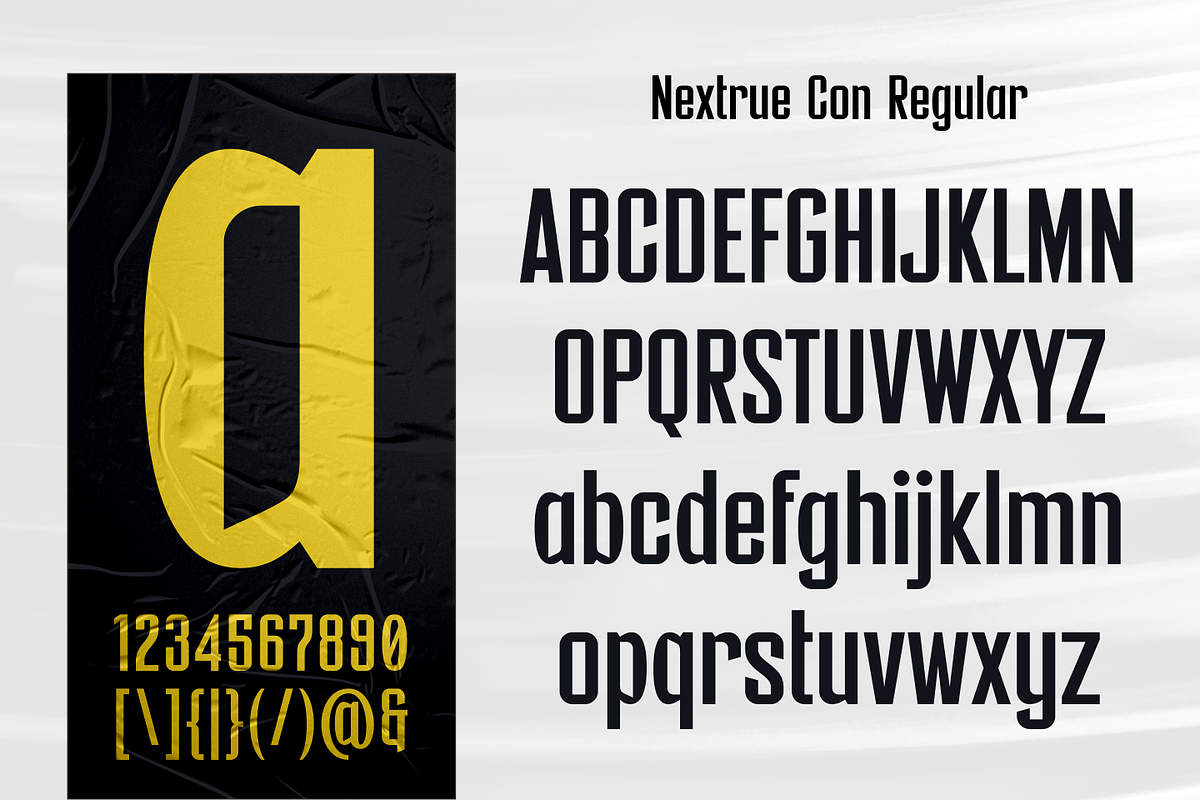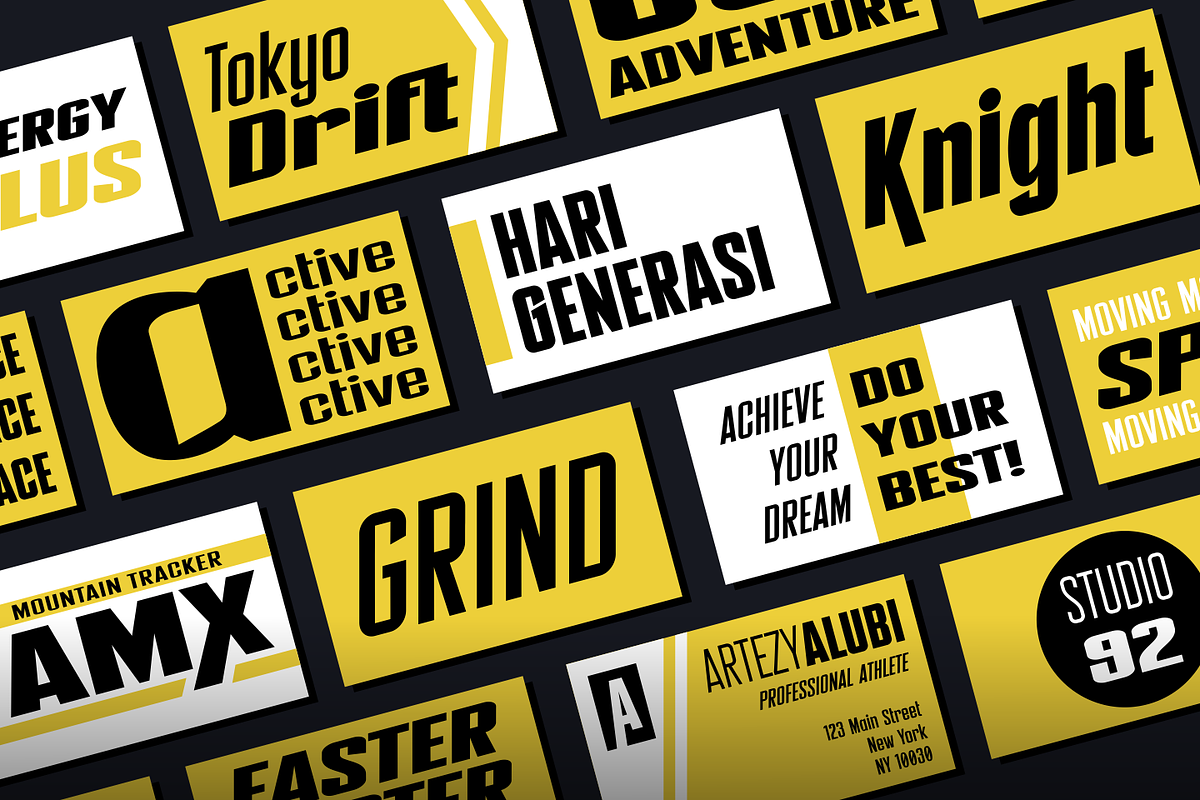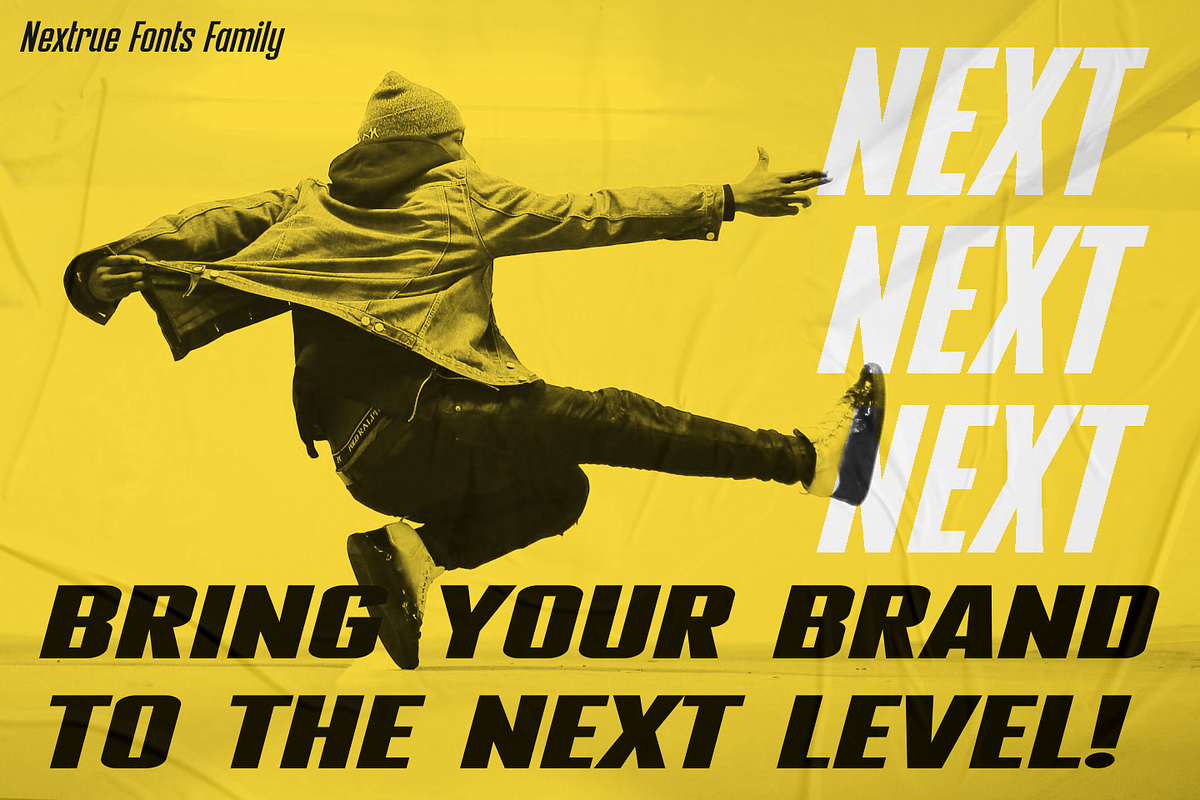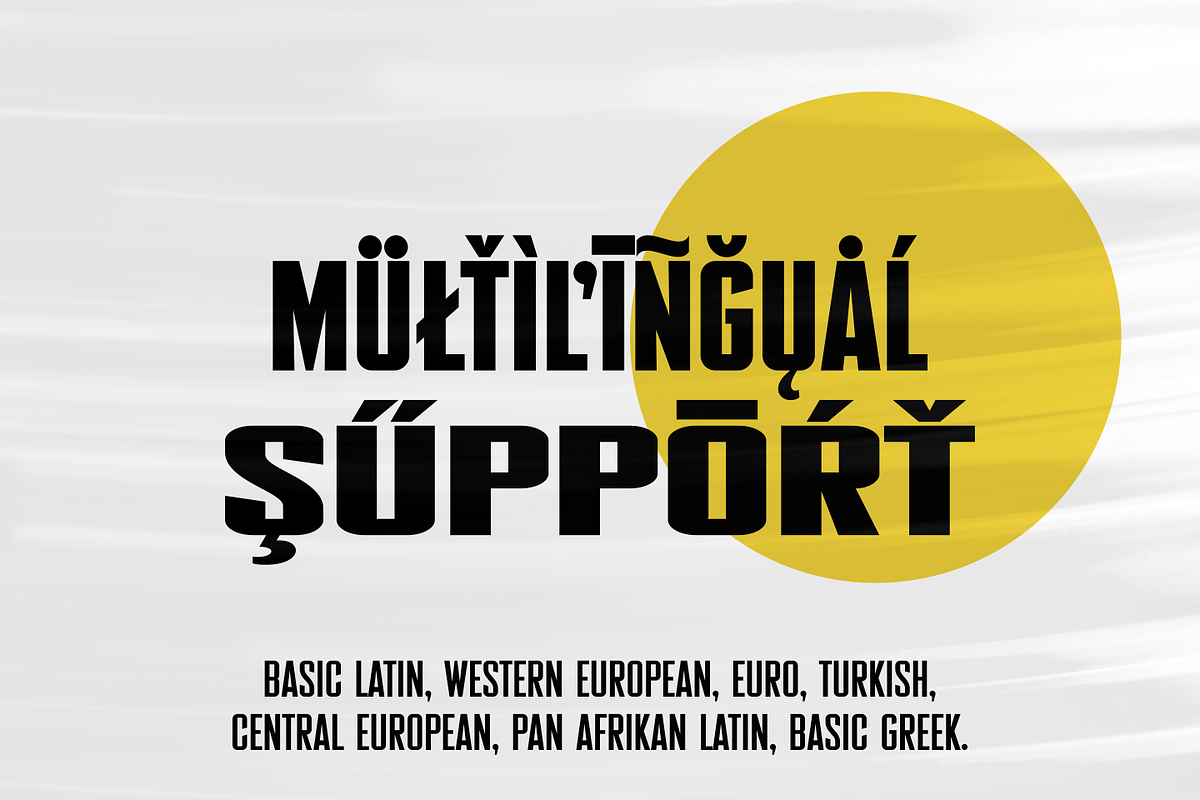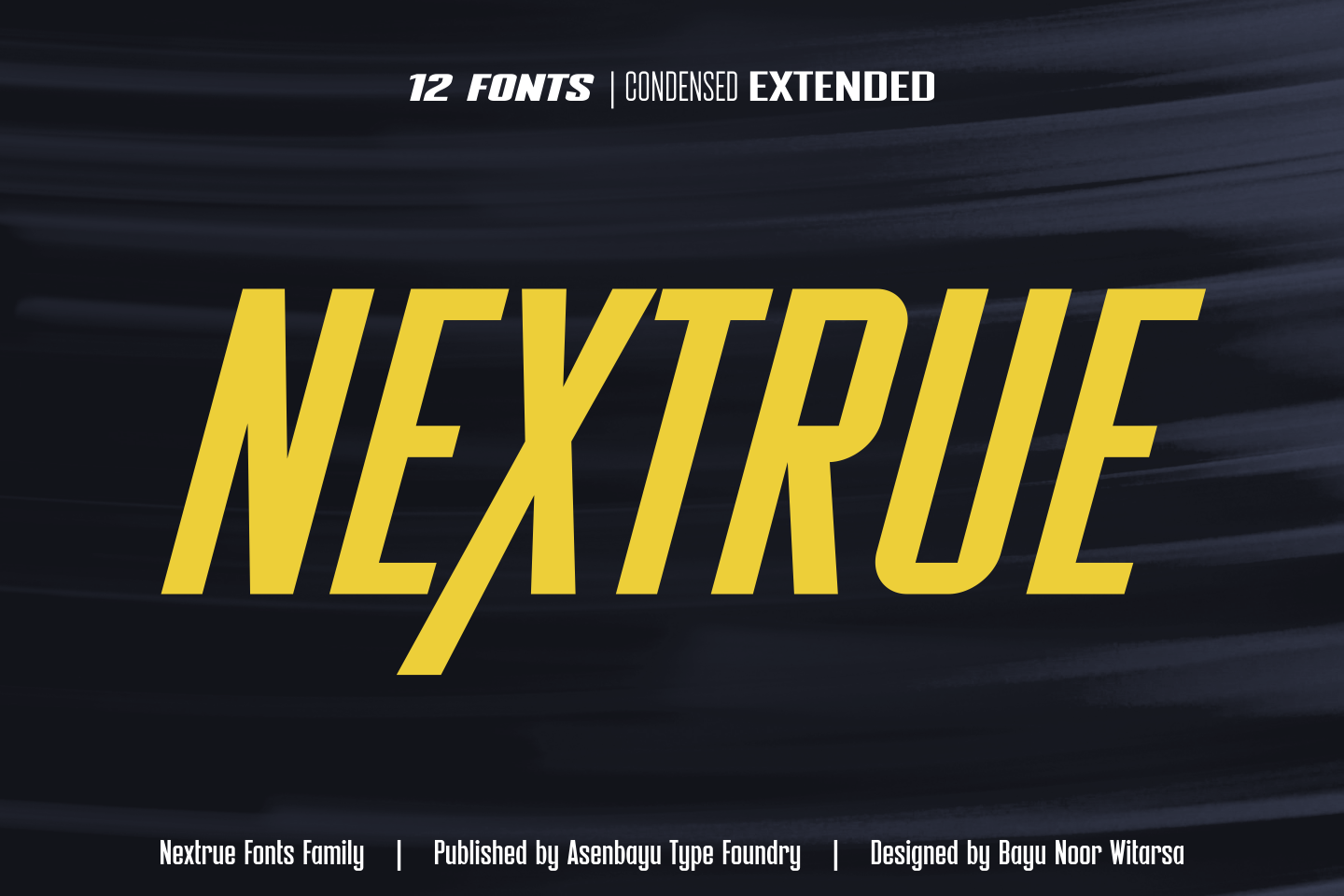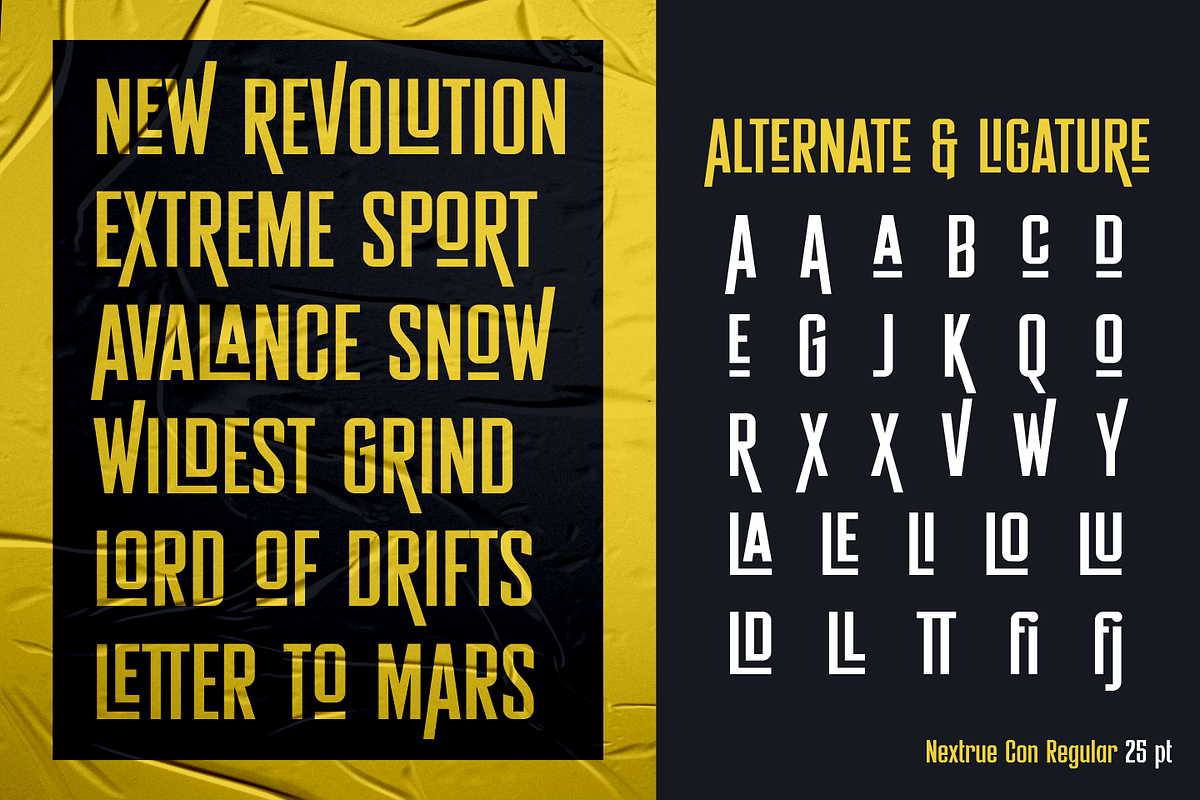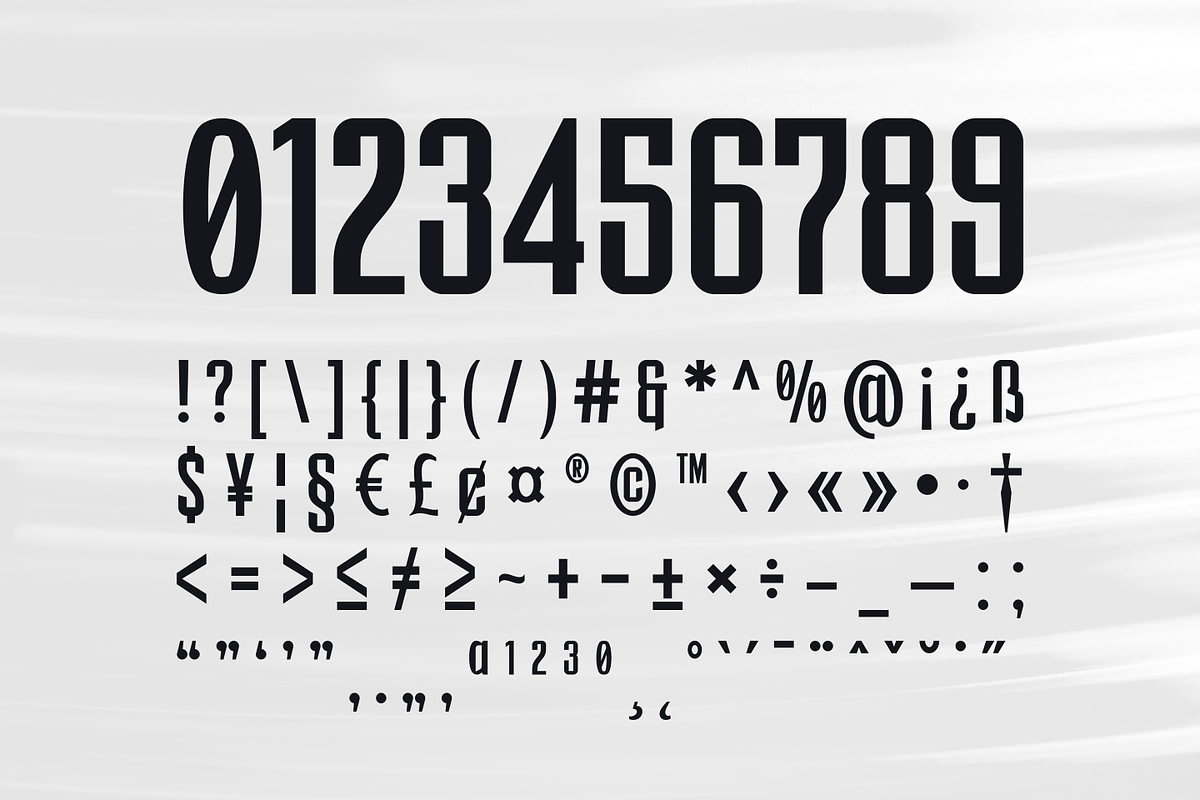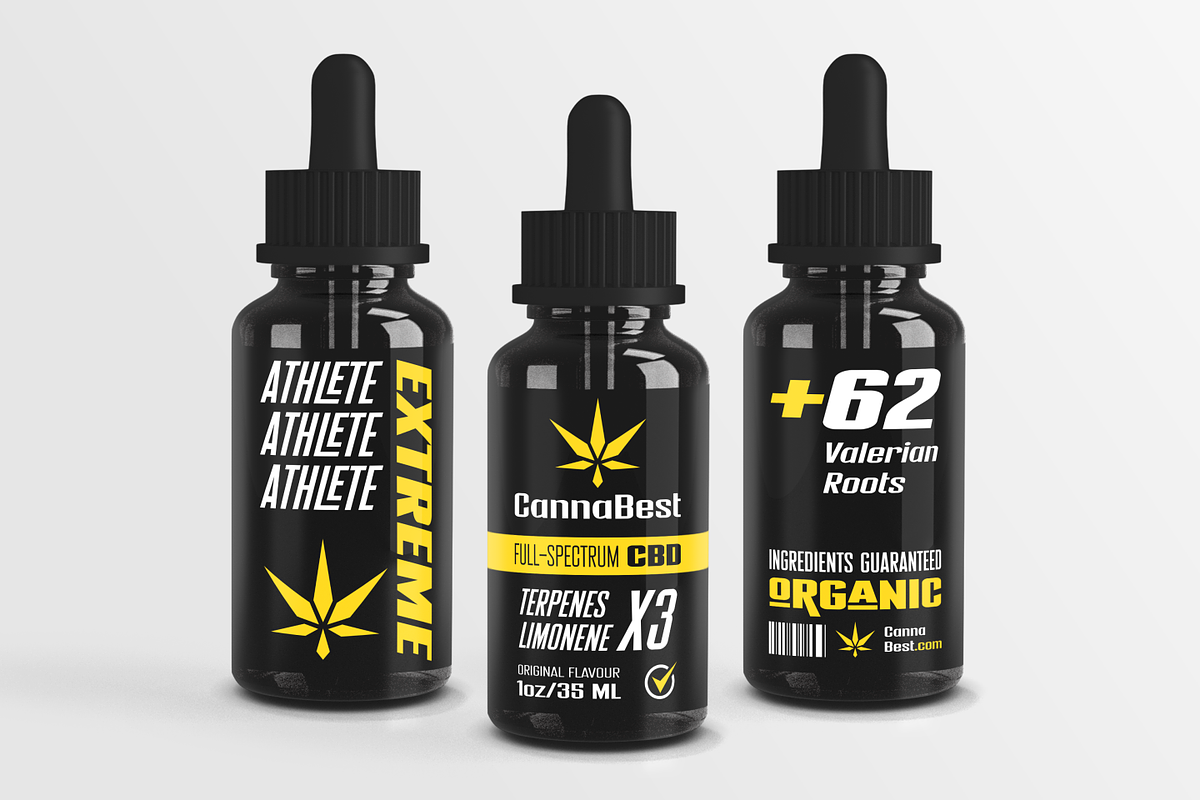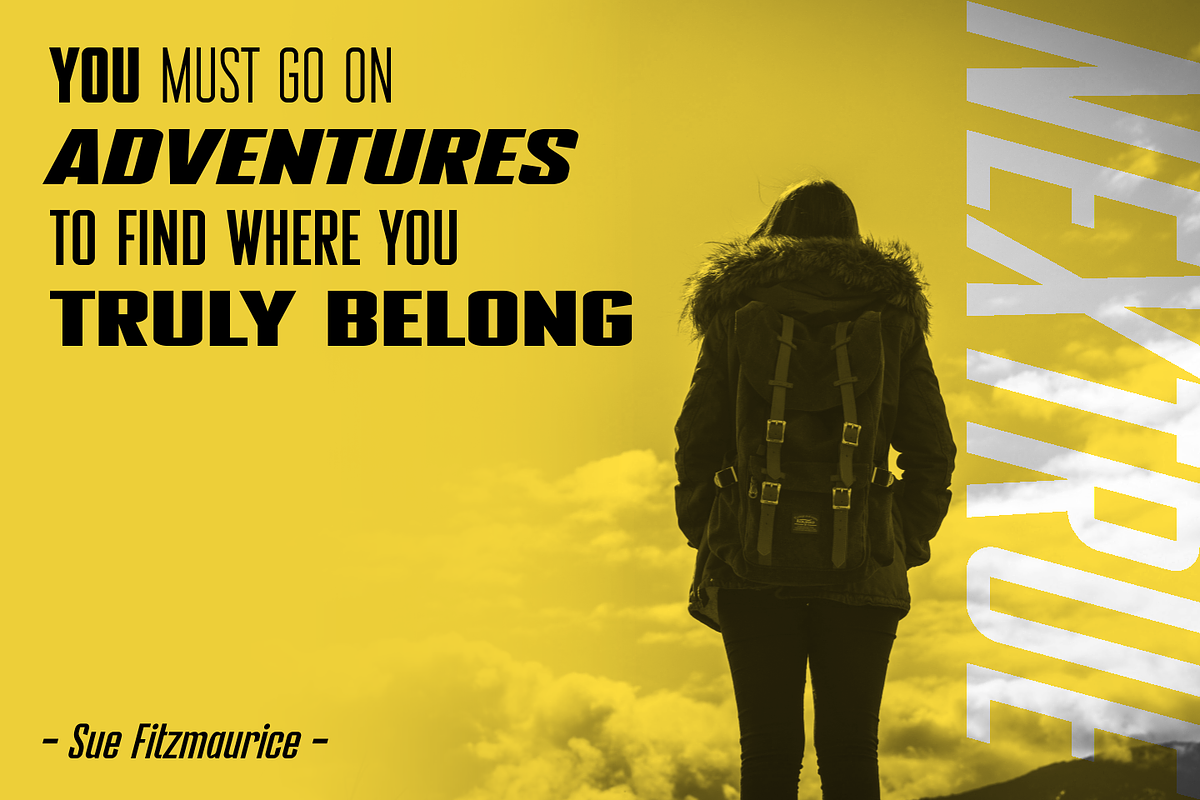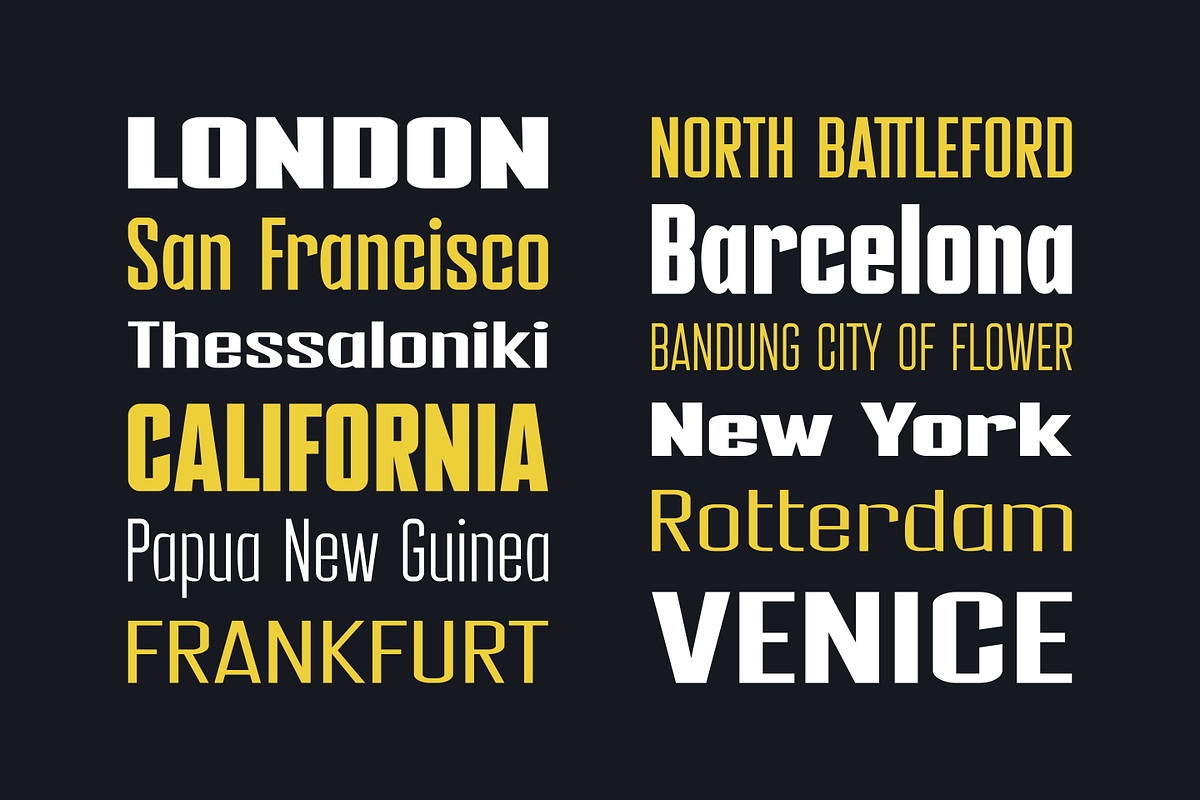
Nextrue Fonts Family
Nextrue font is a sans serif font with a sleek and sporty look. This font is shaped as a professional multipurpose font with a strong look in upright and a dynamic look in slant letter. You can use it in modern youth design, adventure, hobbies and sports. This font is perfect for a variety of projects, such as branding, poster displays, logo design, magazine covers, product labels, clothing and more. This font is perfect for taking your designs to the next level!
Nextrue fonts feature opentype, kerning, ligatures, and alternative styles packed in 12 fonts (Condensed, Extended, Slant). Nextrue fonts include uppercase, lowercase, numbers, punctuation and multilingual support.